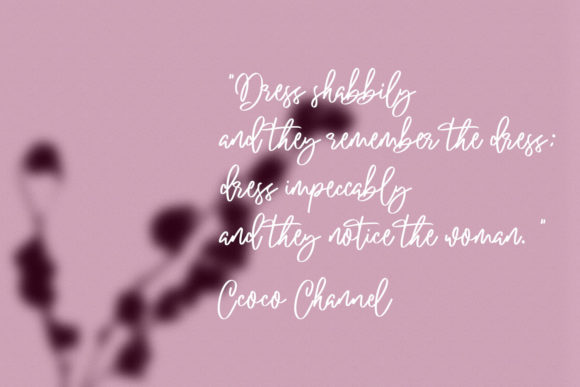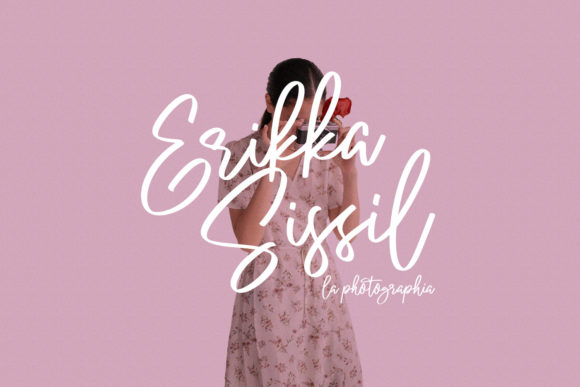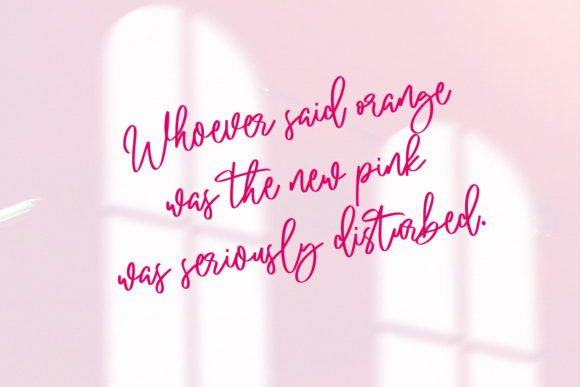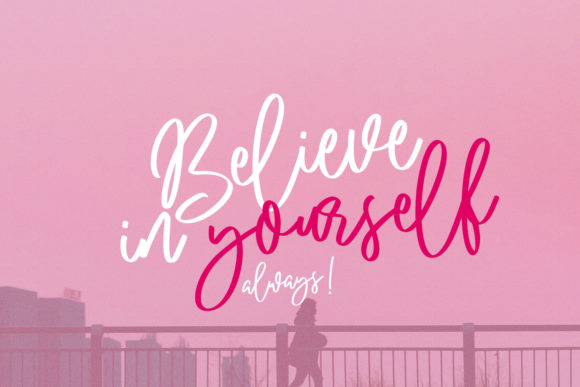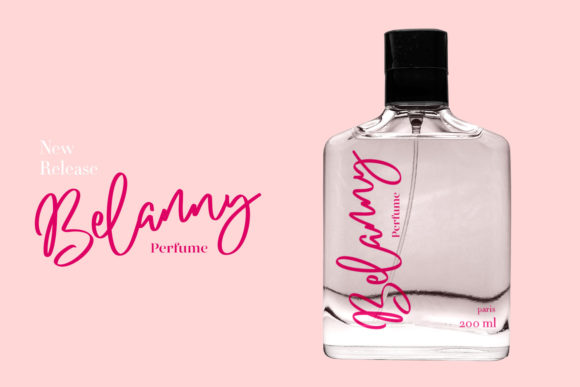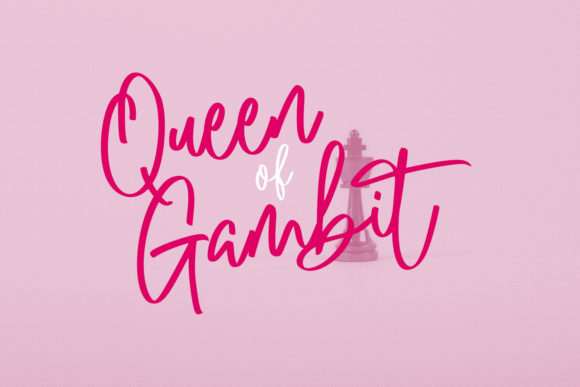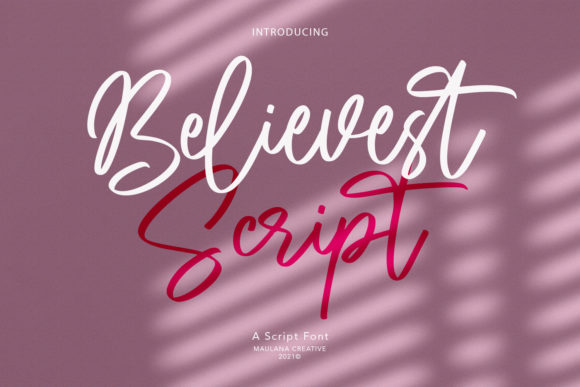
Introducing Believest Script Font: Elevate Your Designs with Timeless Elegance
In the world of typography, a font can make or break the aesthetic of a design project. For designers and crafters seeking a touch of sophistication and elegance, the Believest Script Font is an excellent choice. This casual, stylish, and cursive script font is inspired by timeless calligraphy, making it perfect for a wide range of creative endeavors.
Balanced and Varied: The Unique Charm of Believest Script
What sets Believest Script apart from other script fonts is its balanced and varied design. Not too thin and not too thick, this font strikes the perfect chord between elegance and readability. Its versatility makes it an ideal choice for designers looking to add a touch of sophistication to their projects without overpowering the content.
Design Features and Characteristics
Believest Script boasts a range of design features that make it an attractive option for designers and crafters. Some of its key characteristics include:
- Cursive and connected letters: Giving it a fluid, handwritten feel that’s perfect for creating beautiful text.
- Balanced stroke width: Ensuring that the font remains legible and visually appealing.
- Timeless calligraphy inspiration: Providing a classic and sophisticated look that’s suitable for a wide range of design projects.
- Varied letterforms: Adding a touch of uniqueness and personality to your designs.
Whether you’re working on a branding project, creating invitations, or designing social media graphics, Believest Script Font is an excellent choice. Its versatility and elegance make it suitable for:
- Logos and branding: Create a lasting impression with a sophisticated and memorable logo.
- Wedding invitations and stationery: Add a touch of elegance and romance to your wedding designs.
- Social media graphics: Elevate your social media presence with beautiful and engaging graphics.
- Packaging design: Stand out on store shelves with eye-catching packaging that showcases your brand’s personality.
Why Choose Believest Script Font?
With so many script fonts available, why choose Believest Script? Here are just a few reasons why designers and crafters love this font:
- Elegant and sophisticated: Perfect for designers seeking a high-end look.
- Easy to read: Despite its cursive nature, Believest Script remains legible and easy to read.
- Versatile: Suitable for a wide range of design projects and applications.
- Unique and distinctive: Stand out from the crowd with a font that adds a touch of personality to your designs.
Get Creative with Believest Script Font
In conclusion, Believest Script Font is a beautiful and elegant script font that’s perfect for designers and crafters seeking to add a touch of sophistication to their designs. With its balanced and varied design, timeless calligraphy inspiration, and versatility, this font is sure to become a favorite among designers. So why wait? Get creative with Believest Script Font and take your designs to the next level.